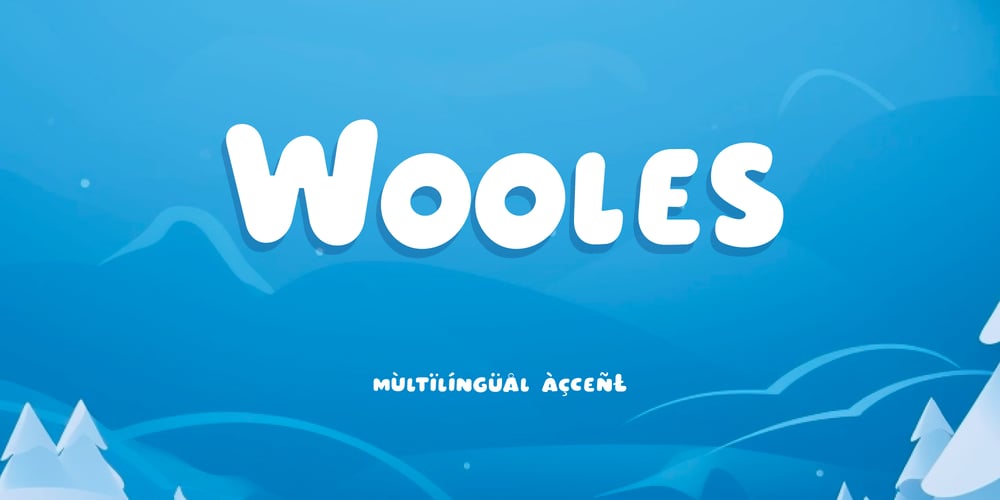
Wooles Font Family was designed by Agustian Eko Saputro, Aprilia Nurina Putri and published by Mightyfire. Wooles contains 1 styles and family package options. Something bold, rounded, bubbly and cute is here! Yes, we have Wooles.As you can see, Wooles is a font with playful and fun style. The look of the font is cute yet firm. It suits perfectly for comic book, cartoon movie, school, children book, birthday card and another fun creative arts!We hope and be honored if Wooles can be the part of your happy moment. ๐